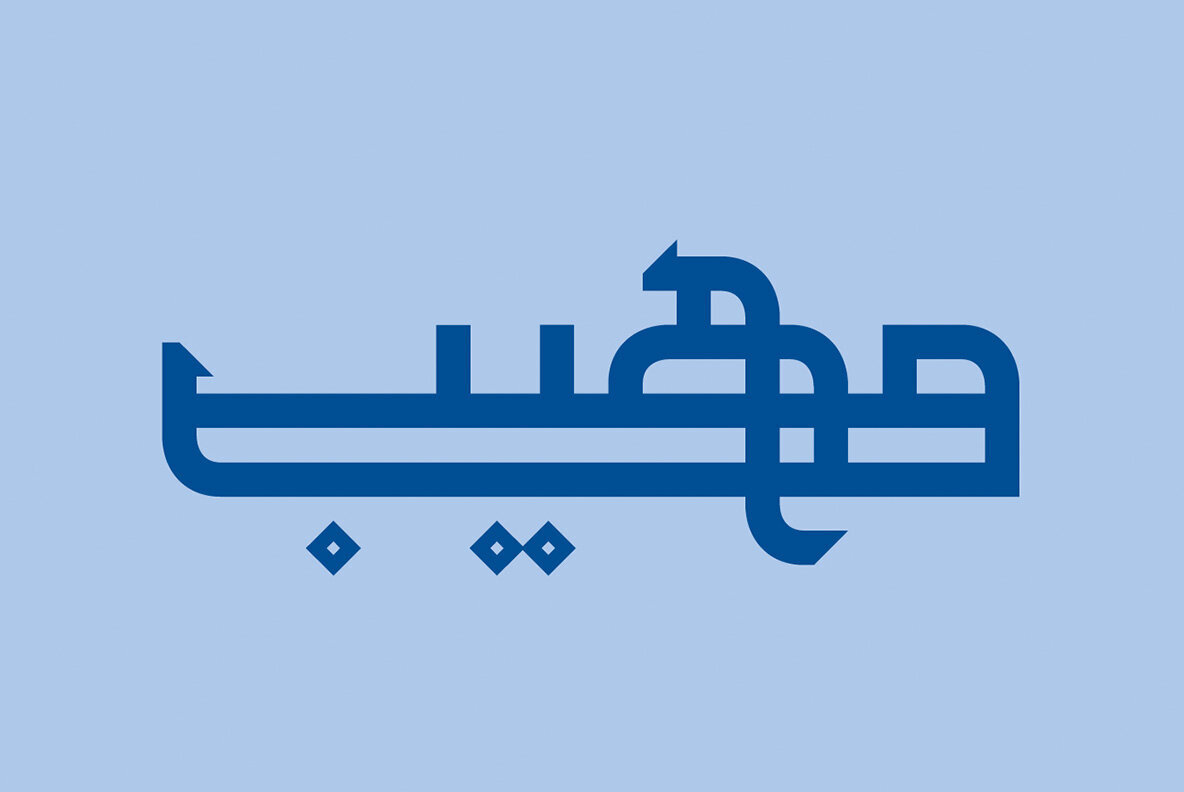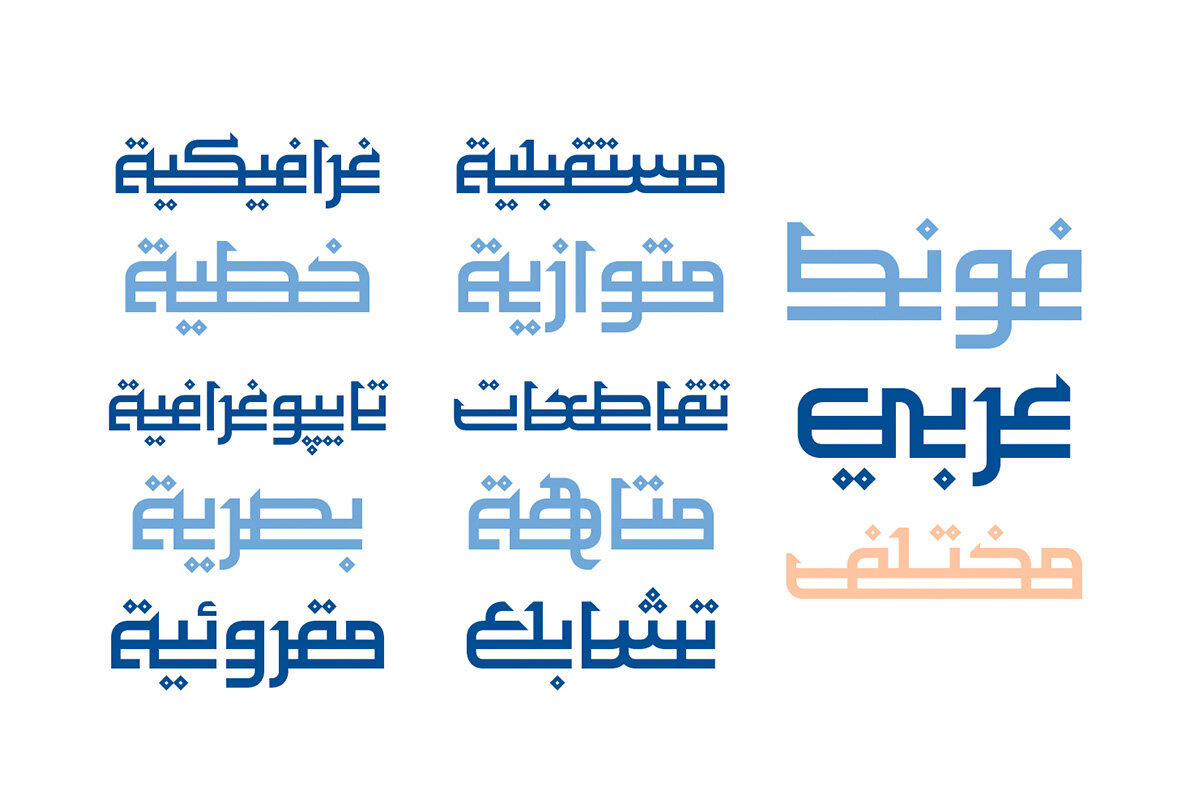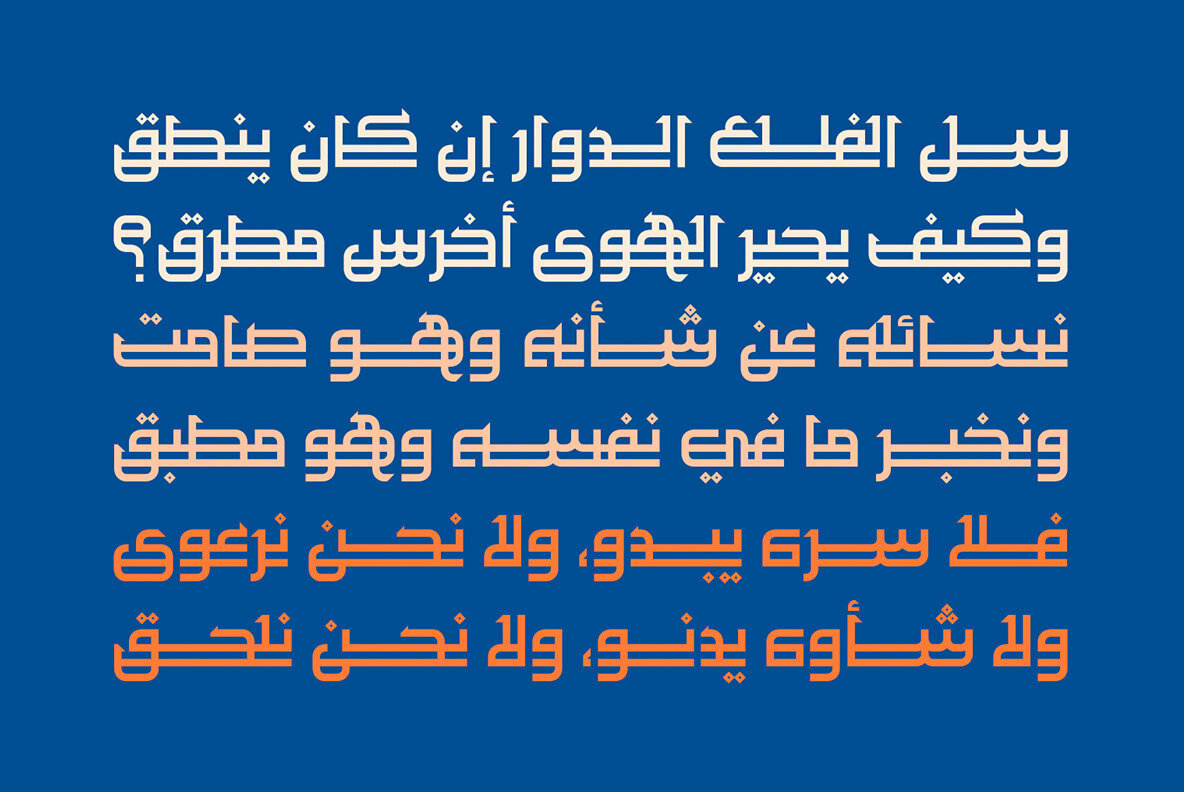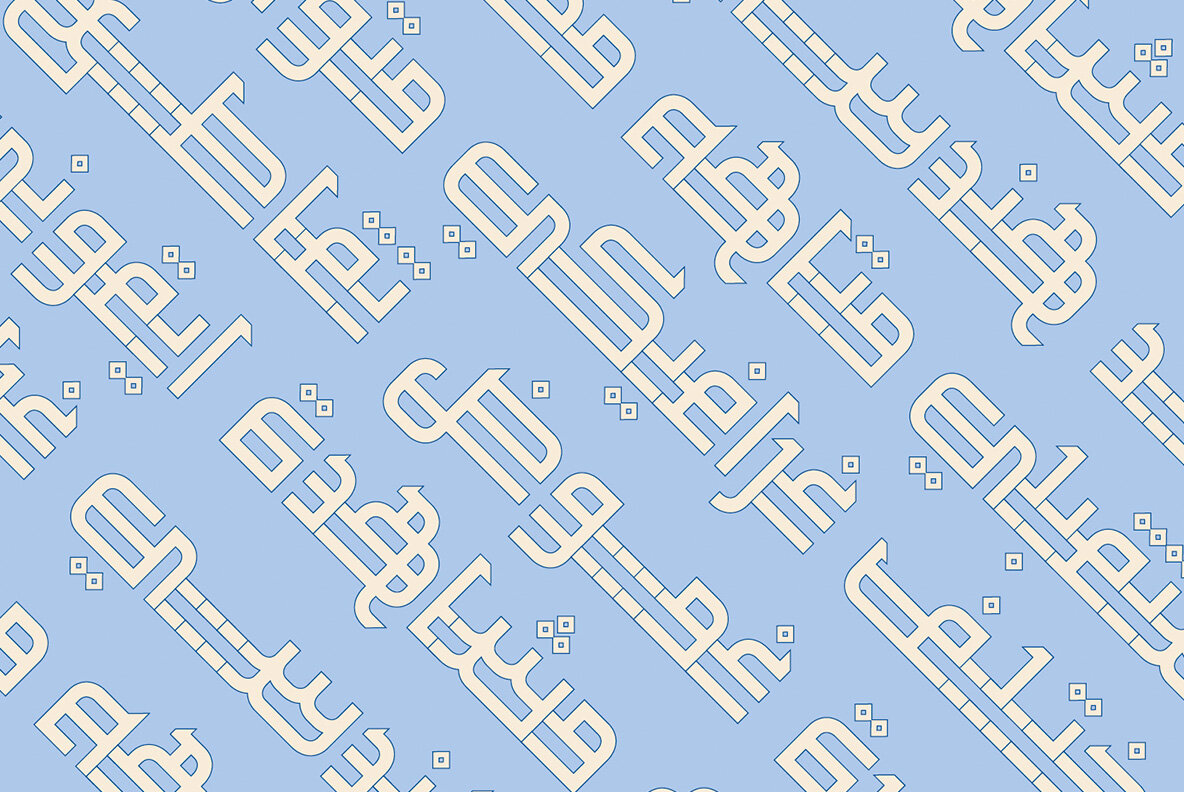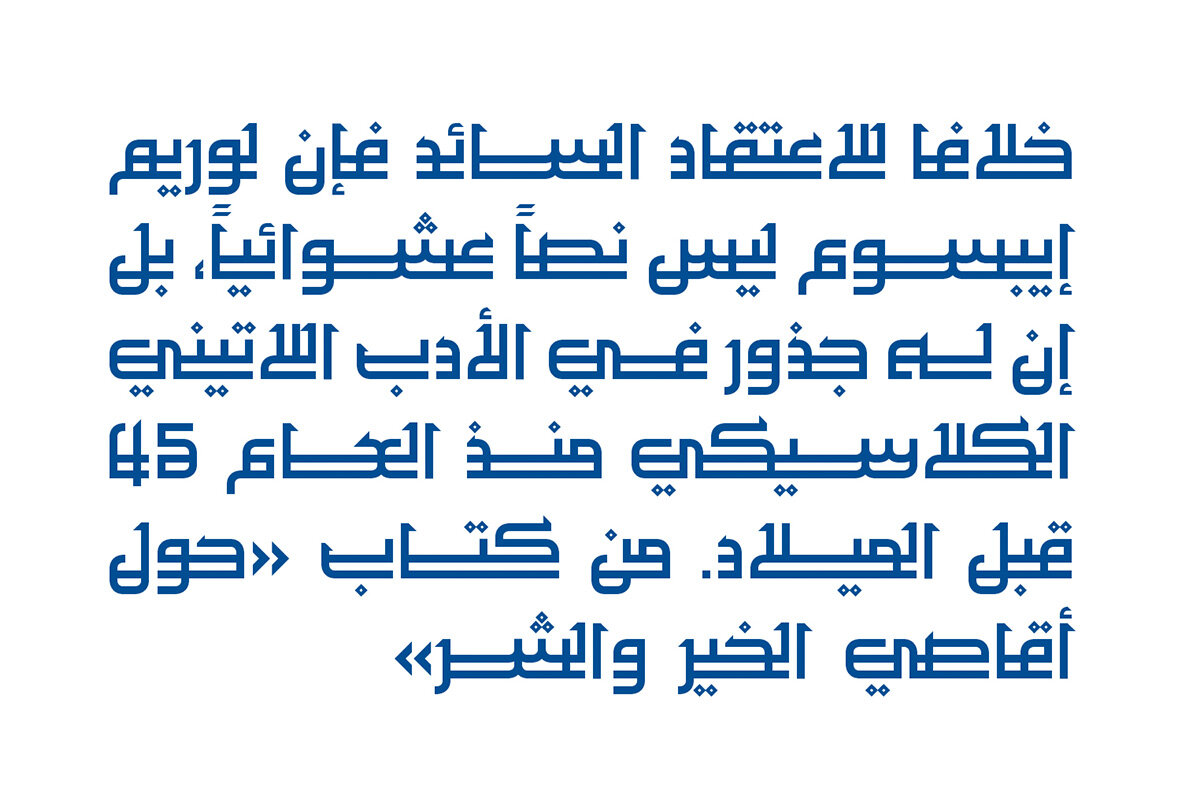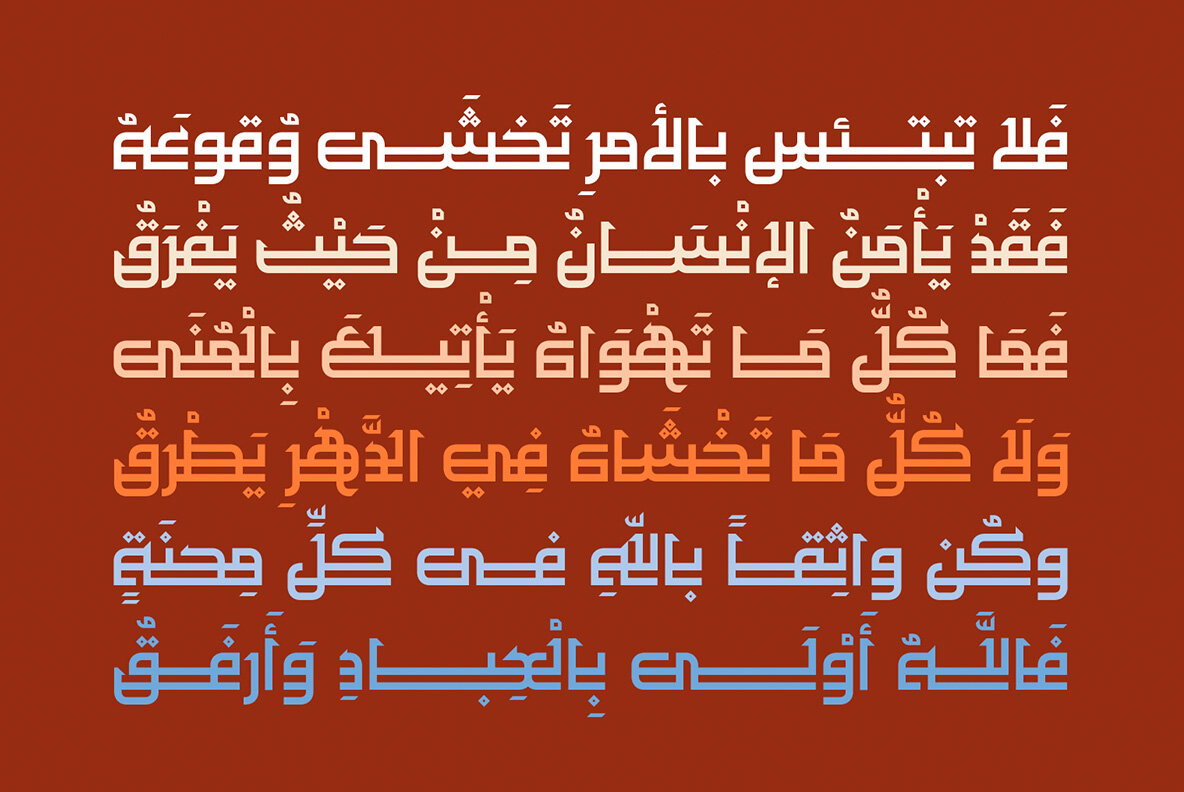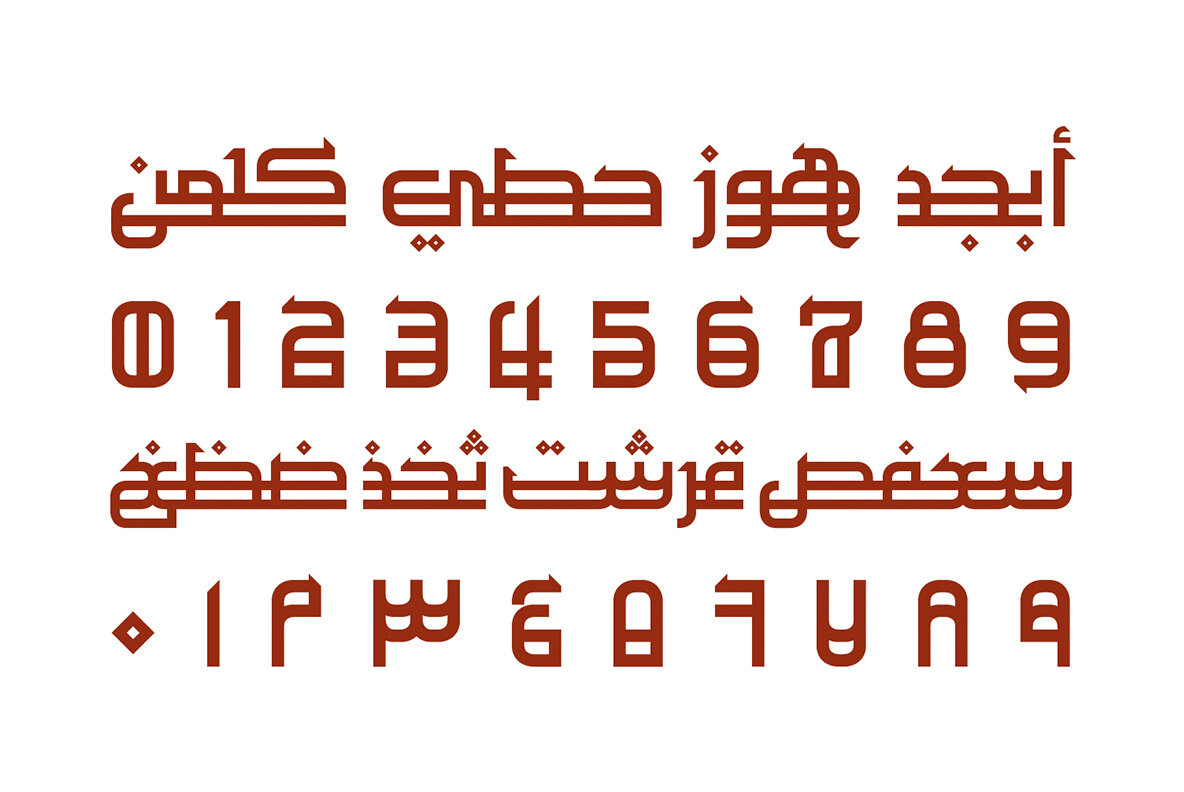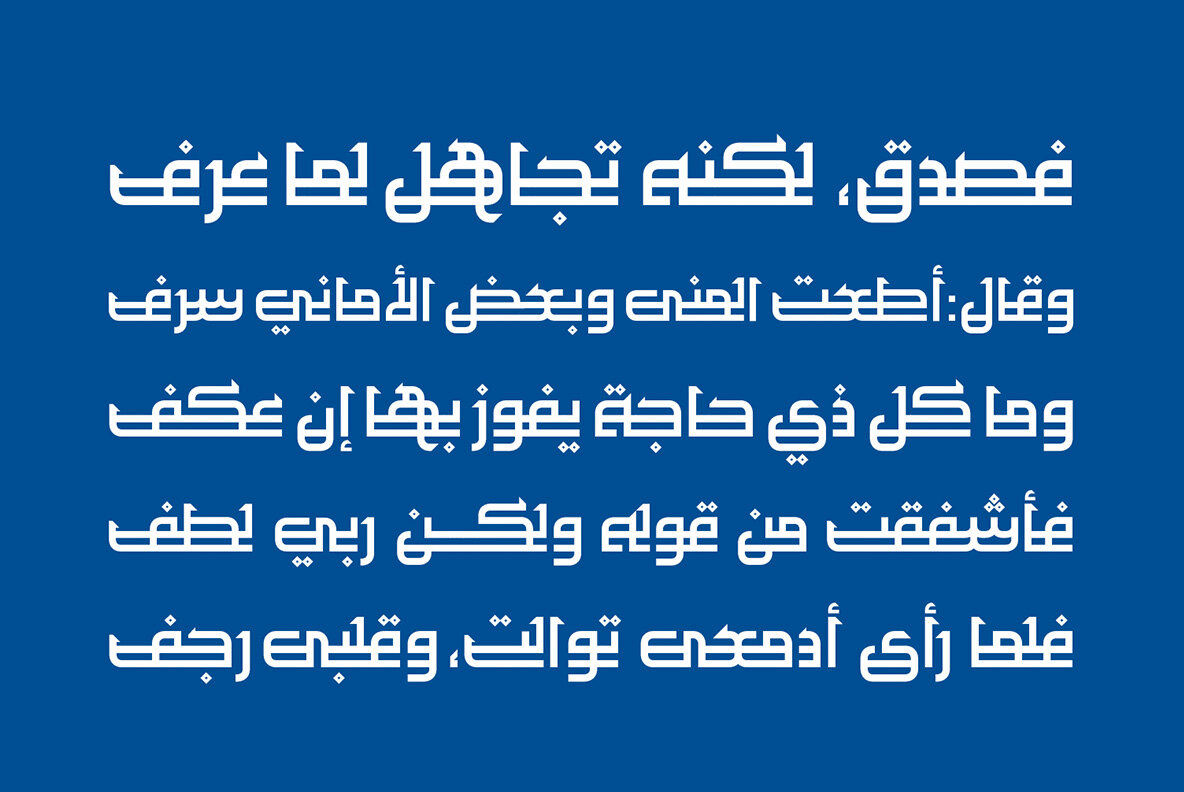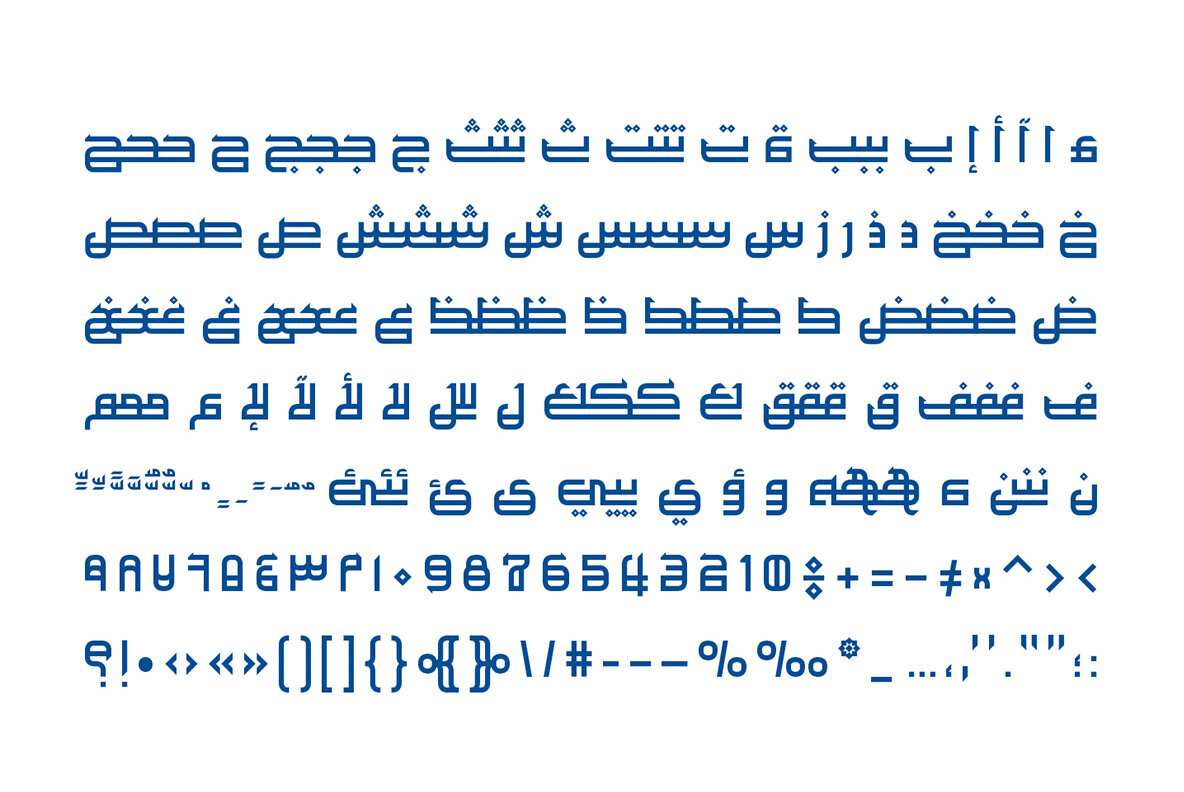
Maheeb Font
Maheeb
Maheeb, a name signifying majesty, is an Arabic display font that commands attention with its dual baselines and proportionate letterforms accentuated by sharp terminals. Its distinctive style offers versatility, making it an excellent choice for a plethora of creative projects, from print media to web design and advertising.Maheeb: Majestic Arabic Display Font